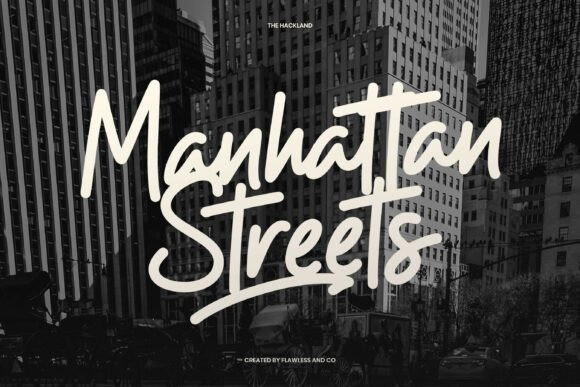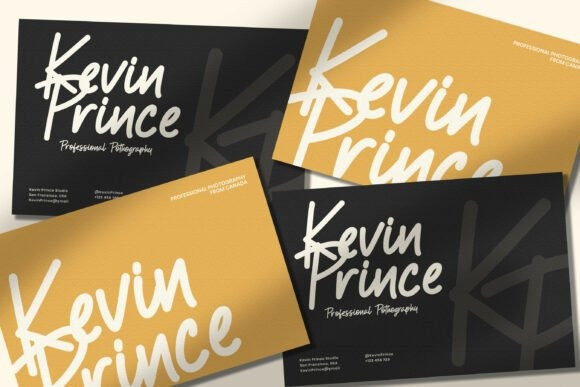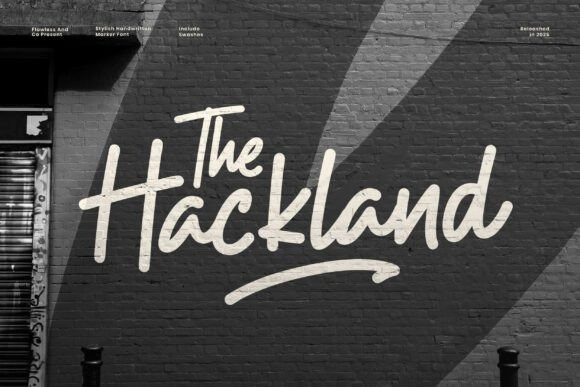
The Hackland Script Font
The Hackland Script Font is a handwritten marker font with a bold, natural, and expressive character. Inspired by authentic hand-drawn strokes, this font delivers a casual yet confident feel that brings personality and energy to any design. With its organic lines and smooth marker texture, The Hackland feels raw, creative, and dynamic.